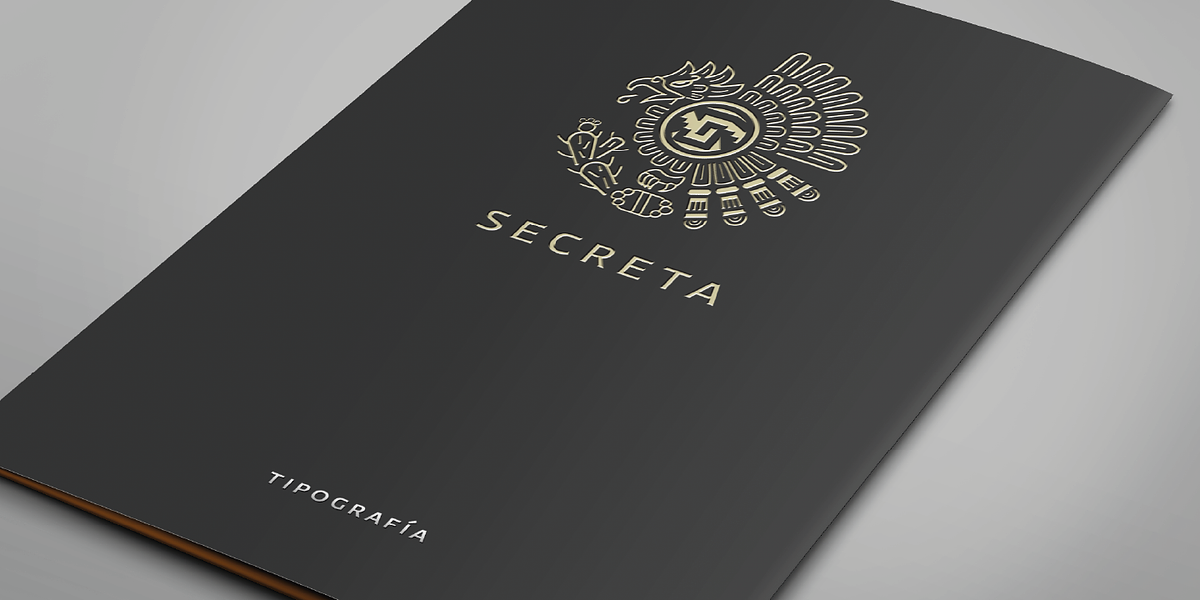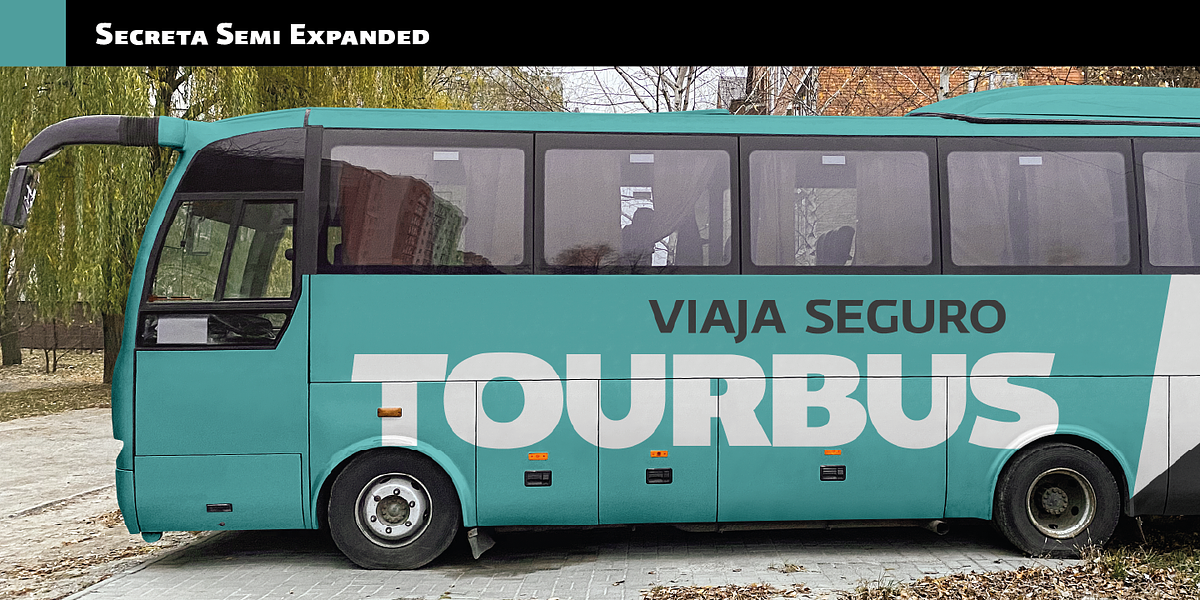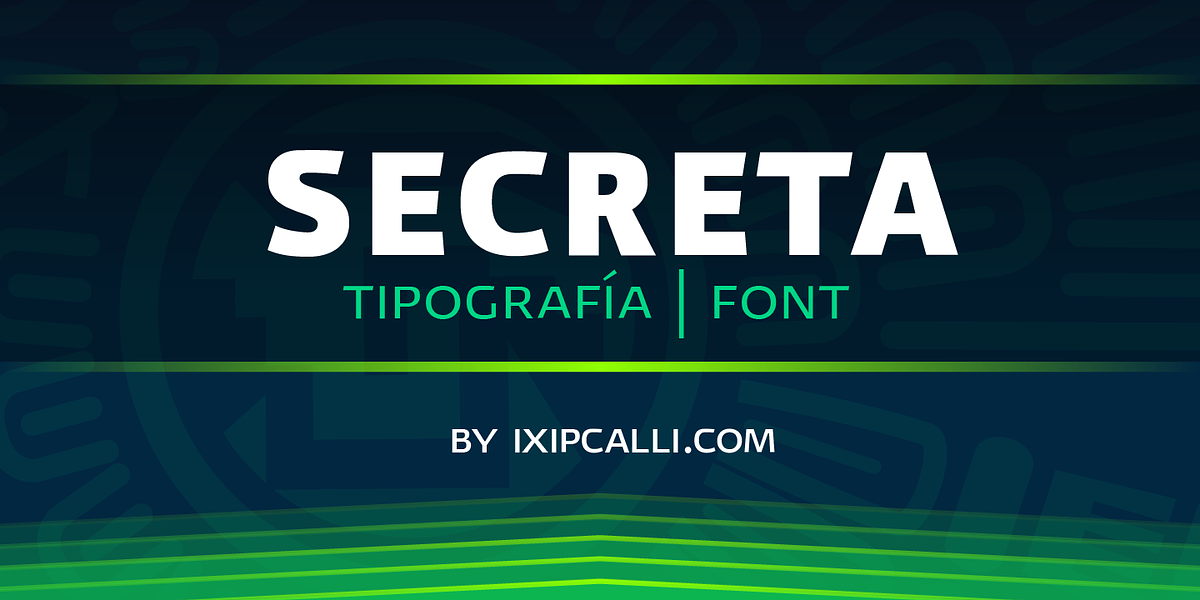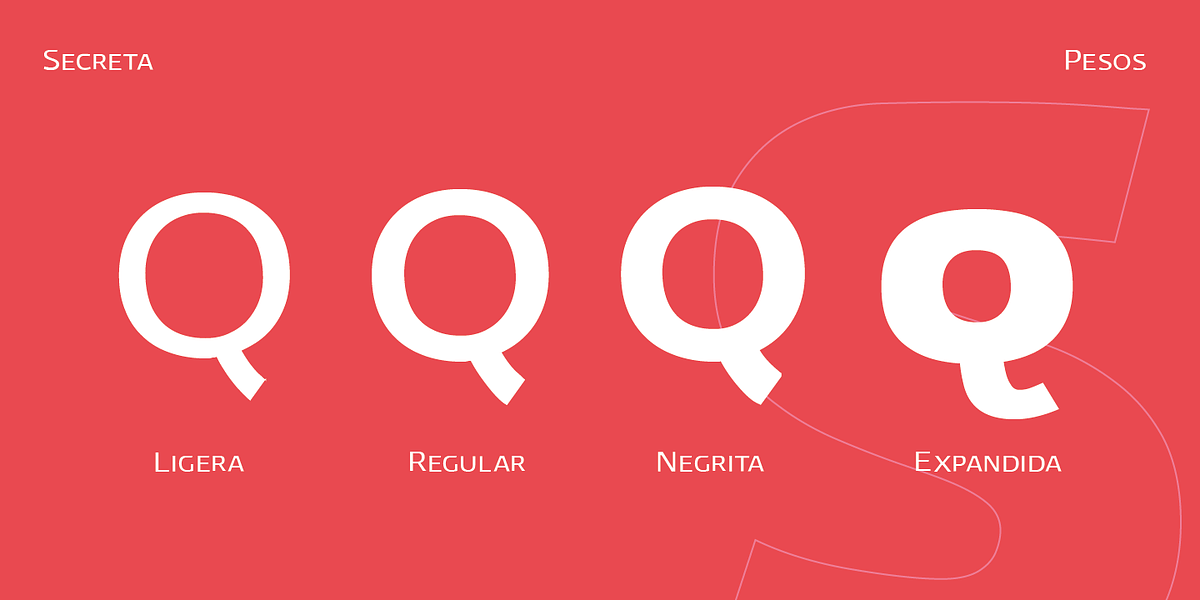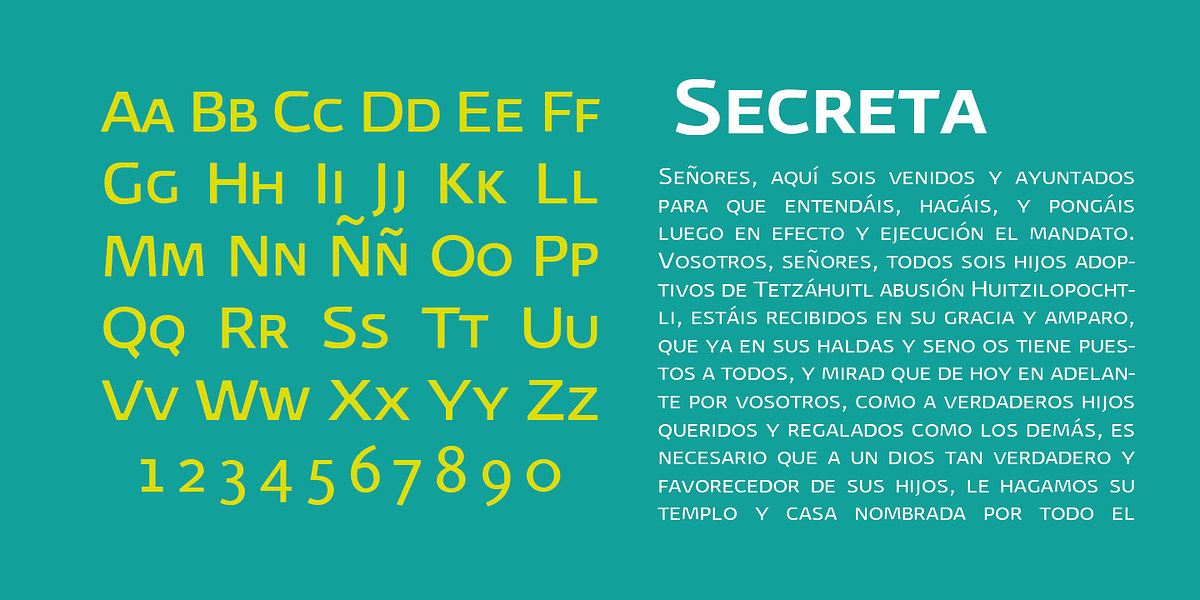
Secreta
Secreta is a modern sans-serif typeface characterized by its geometric forms. It offers four weights: Light, Regular, Bold, and Extended Bold, each with extensive language support. The typeface is well-suited for display purposes in graphic design, web design, signage, corporate branding, and editorial applications.